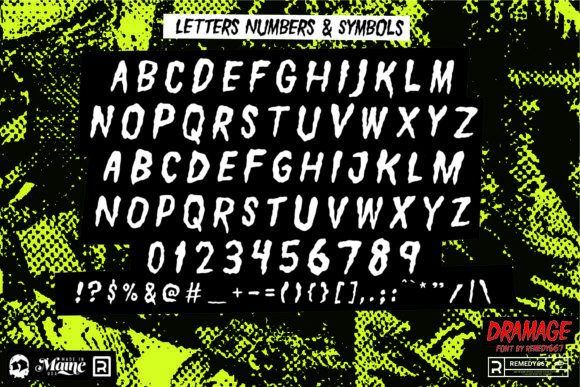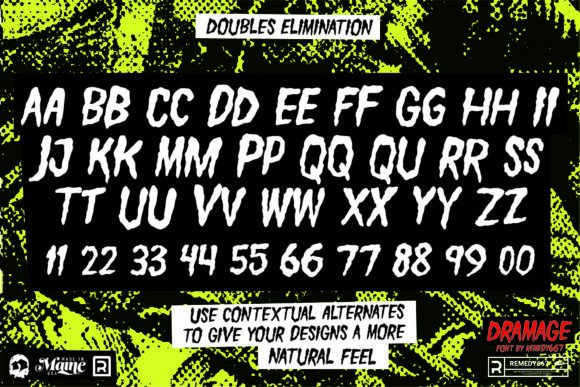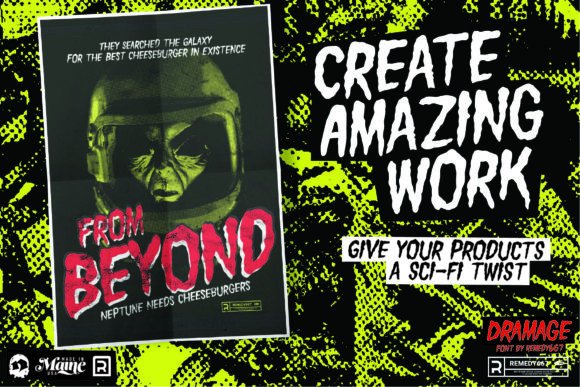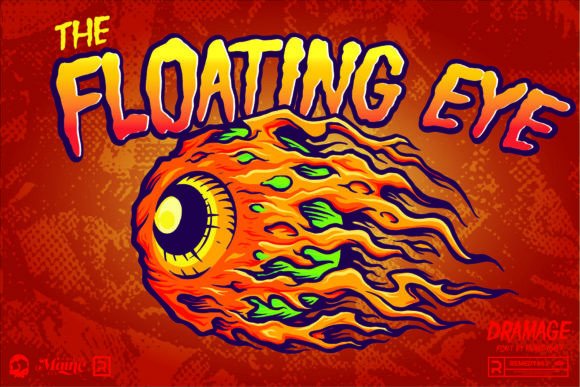
Get Ready to Rock with Dramage Font
I’ll never forget the time I was working on a heavy metal band’s logo design project. I had to create a logo that screamed “edgy” and “bold,” but I was struggling to find the perfect font. That’s when I stumbled upon Dramage Font, and it changed the game. In this article, I’ll share my experience with Dramage, its features, and how to make the most of it.
My Honest Review of Dramage Font
I’ve had the chance to work with Dramage Font on several projects, and here’s what I think:
- ✨ Massive Glyph Library: With over 350 glyphs, including uppercase letters, lowercase letters, numbers, and symbols, Dramage has everything you need to create unique and eye-catching designs.
- ✅ Perfect for Edgy Designs: This font is tailor-made for heavy metal bands, skateboard companies, horror movies, sci-fi novels, and any project that requires a bold and edgy look.
- ⚠️ Some Kerning Issues: I’ve noticed that some letter combinations can get a bit messy, so be prepared to do some manual kerning to get the perfect look.
- 🤔 Not Suitable for Body Text: Dramage is a display font, and it’s not meant for long-form text. Stick to using it for headings, titles, and logos.
The Story Behind Dramage Font
Dramage Font was created with the goal of providing a bold, edgy font for designers who need to create eye-catching logos, advertisements, and visual effects. The designer wanted to create a font that would be perfect for heavy metal bands, skateboard companies, and horror movies, and I think they succeeded.
| Font Name | Dramage Font |
| Author | remedy667 |
| What type of designs is Dramage Font best suited for? | Dramage Font is perfect for designs that require a bold, edgy look, such as heavy metal band logos, skateboard company branding, horror movie posters, and sci-fi novel covers. |
| How many glyphs does Dramage Font contain? | Dramage Font contains over 350 glyphs, including uppercase letters, lowercase letters, numbers, and symbols. |
| Can I use Dramage Font for body text? | No, Dramage Font is a display font and is not suitable for long-form text. It’s best used for headings, titles, and logos. |